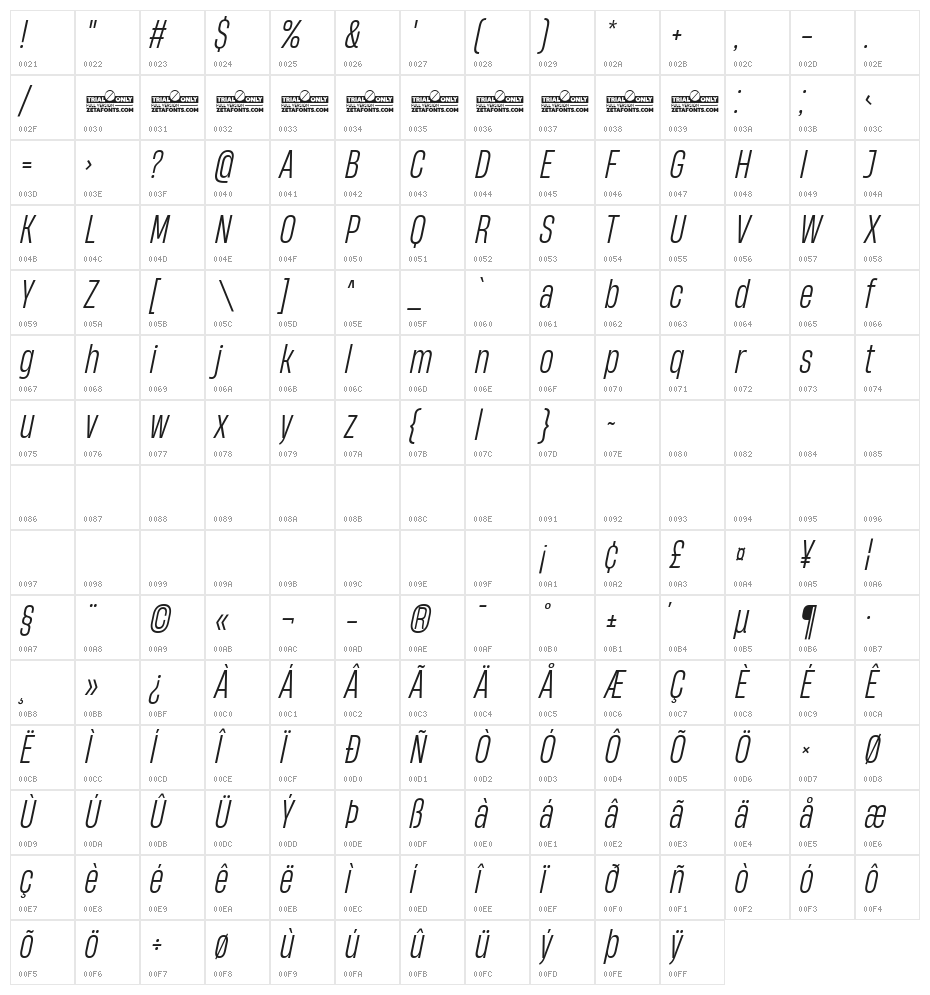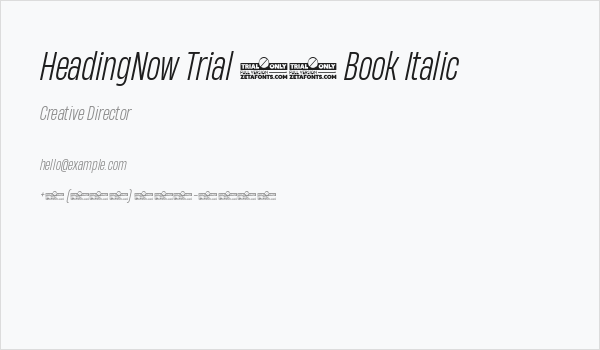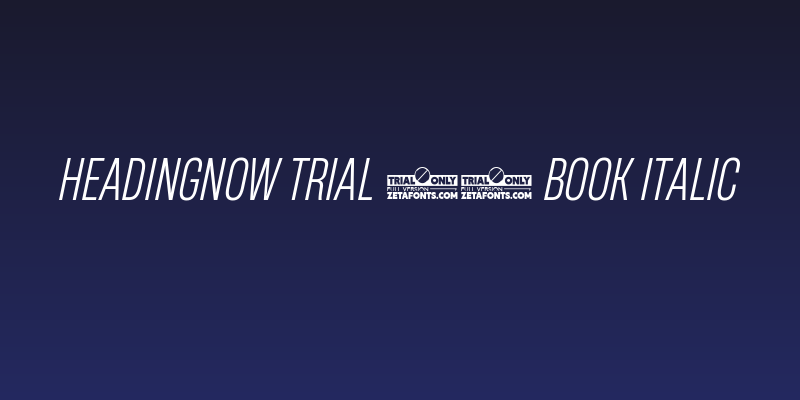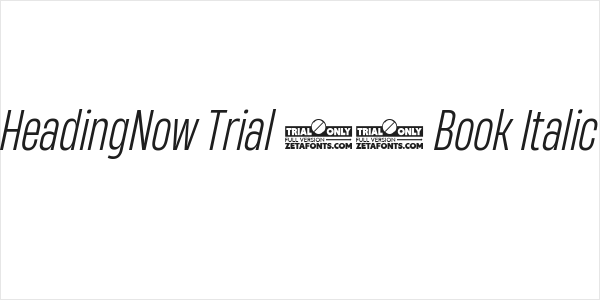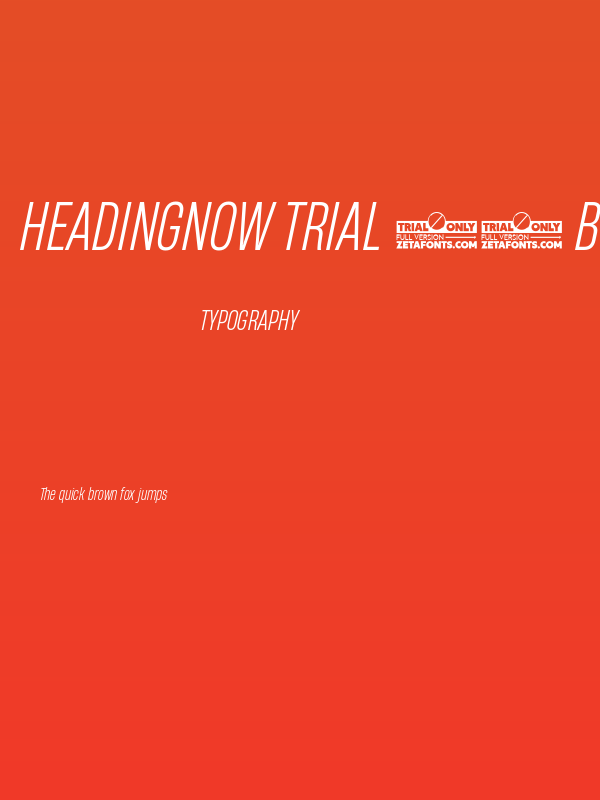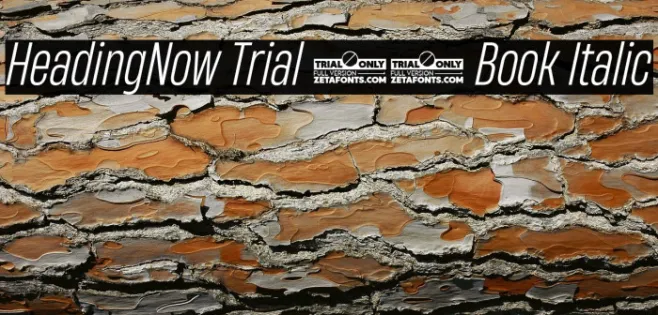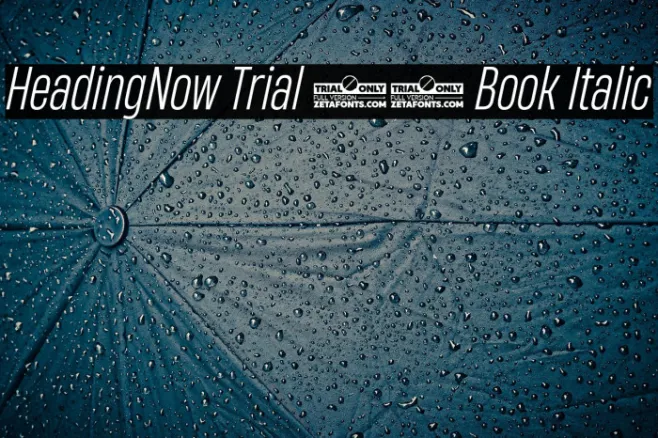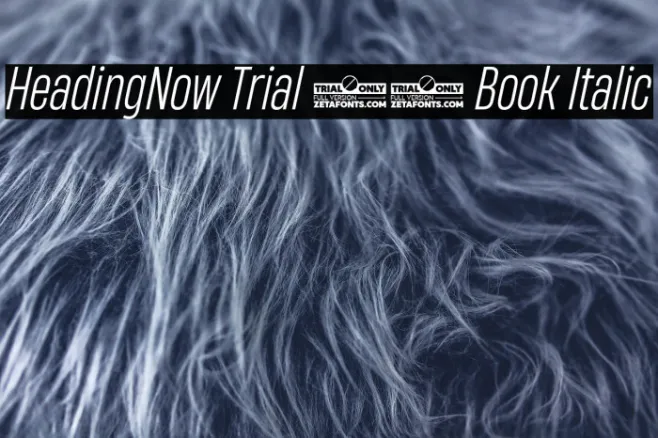
HeadingNow Trial 43 Book Italic Font
HeadingNow Trial 43 Book Italic Description
This font exhibits a sleek and modern aesthetic with a distinctly italicized style. The characters are elongated and slightly condensed, giving a sense of forward motion and dynamism. The strokes are consistent in weight, providing a uniform appearance across both uppercase and lowercase letters. The numerals and special characters maintain this cohesive look, ensuring readability and style. The font's clean lines and subtle slant make it suitable for contemporary design projects where a touch of elegance and sophistication is desired.
| Proposed Projects | Ideal for branding, editorial design, and digital media where a modern and sophisticated look is required. |